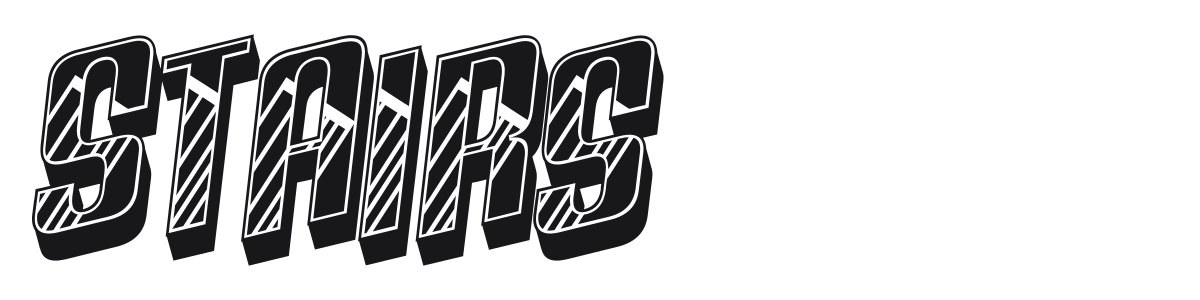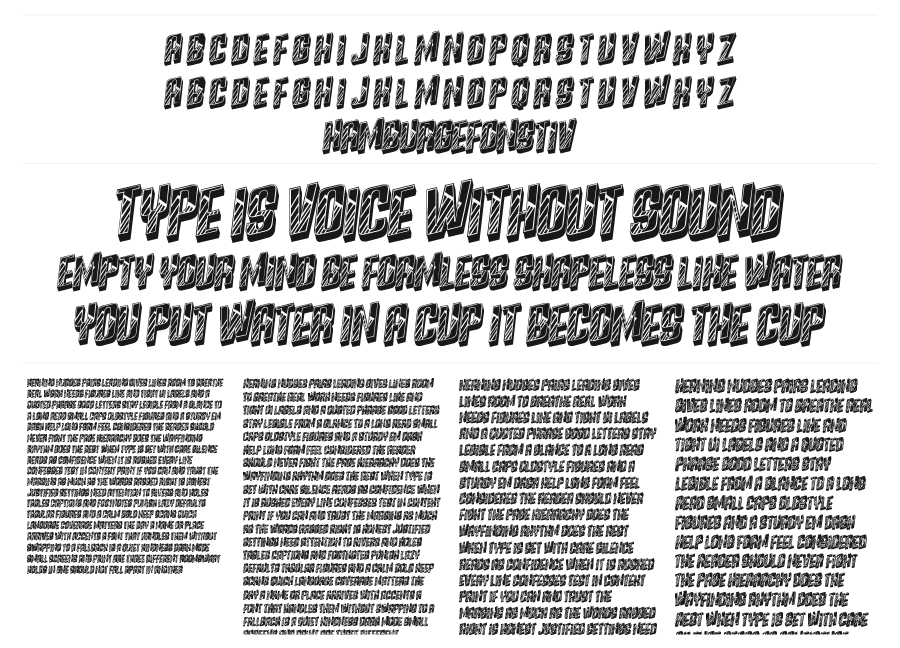
Stairs
Stairs is a bold italic display font dripping with retro comic-book energy, built around thick condensed strokes filled with diagonal inline stripes and anchored by a heavy 3D block shadow. The irregular, slightly rough edges keep it from feeling too polished, which is exactly the point. Strong at large sizes for posters, game titles, sports branding, or anywhere that needs attitude.